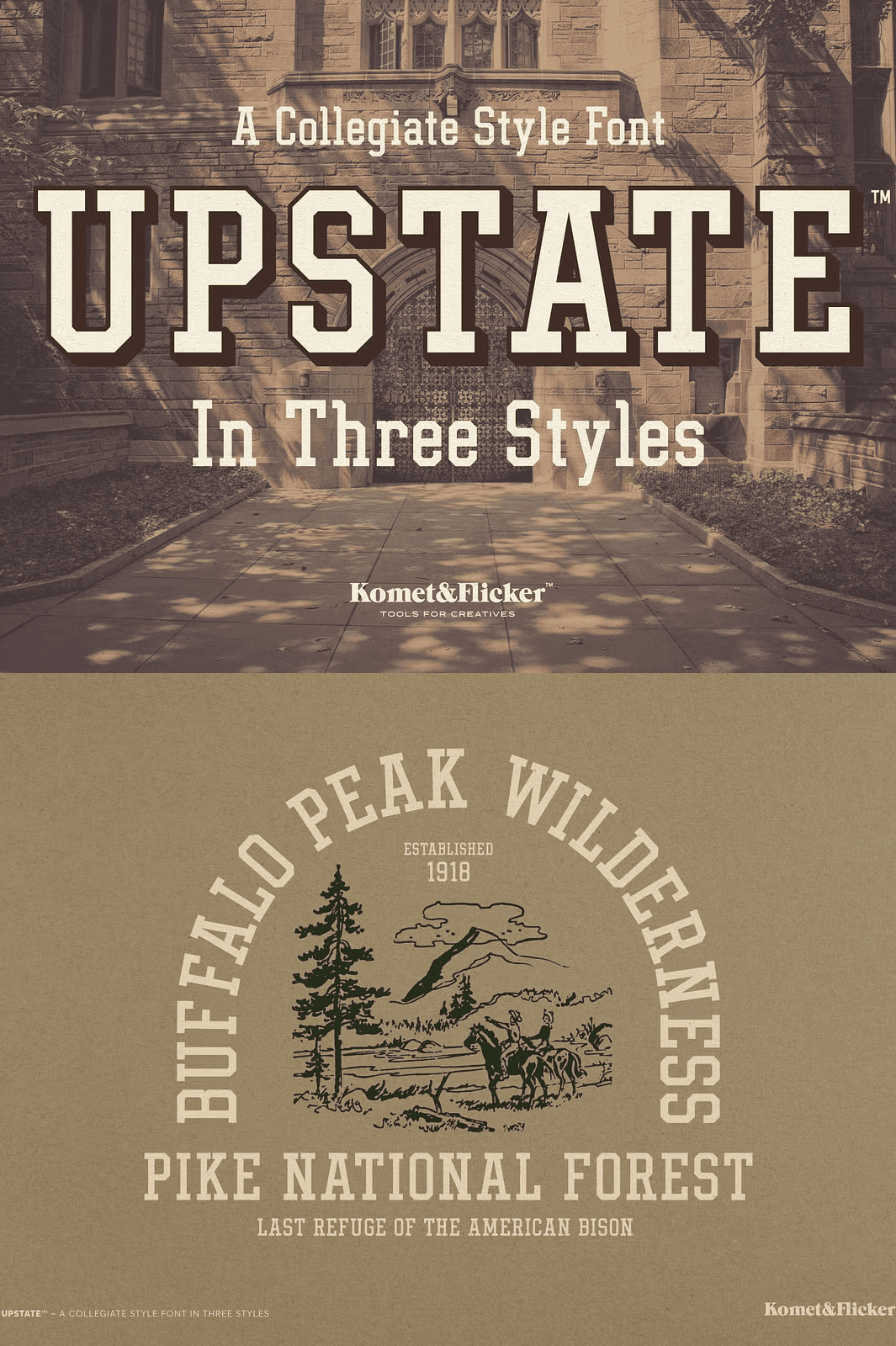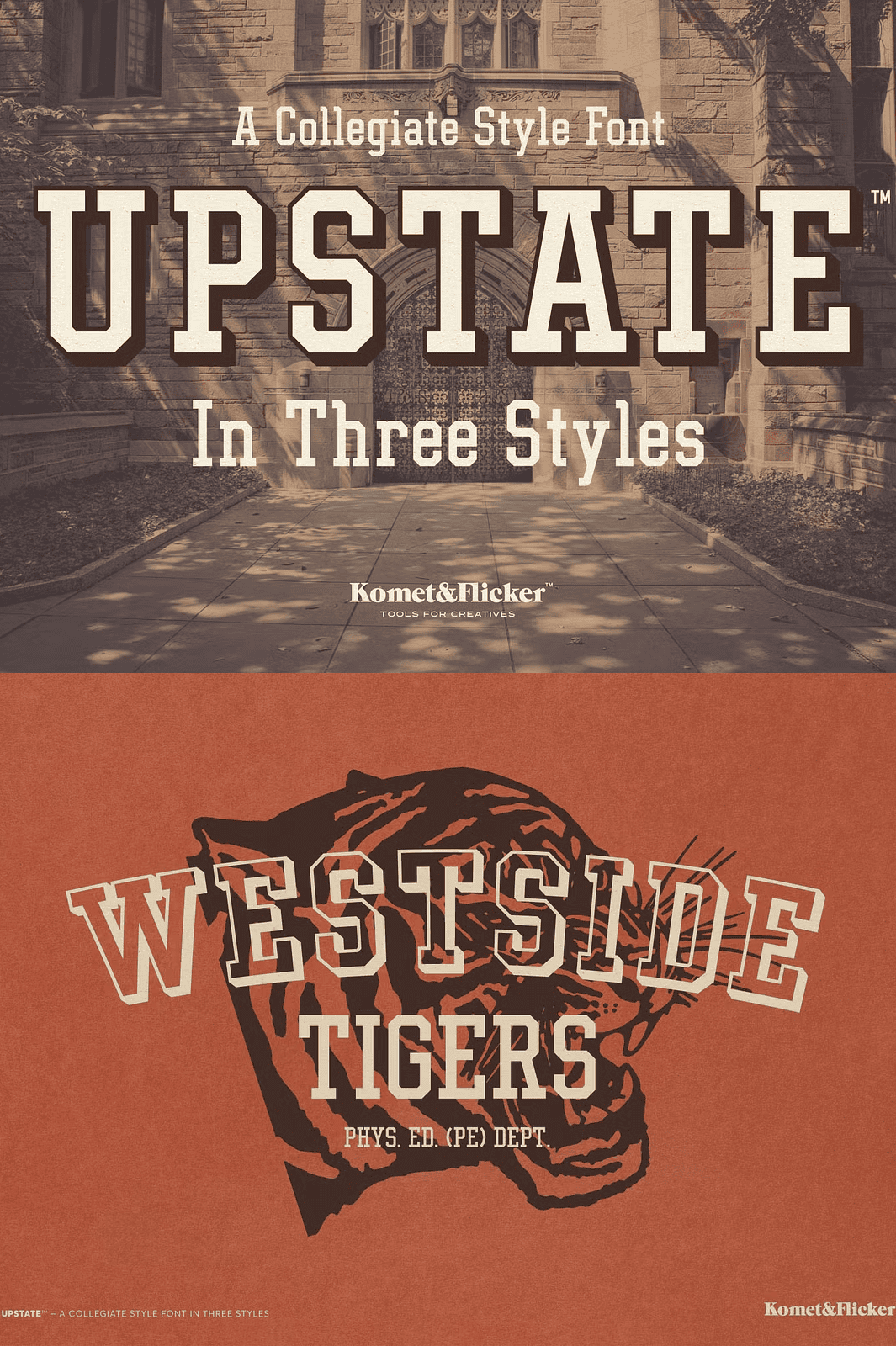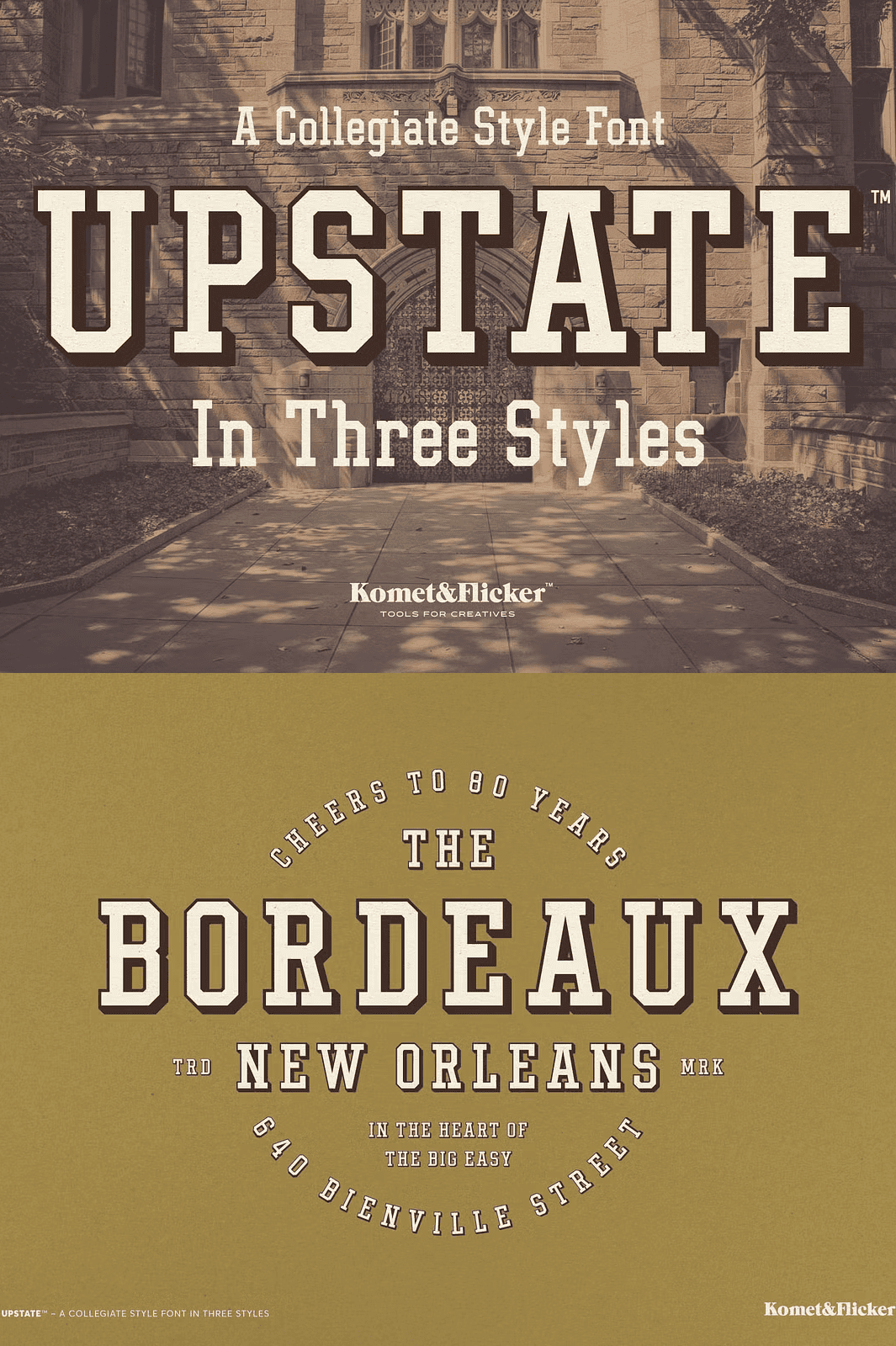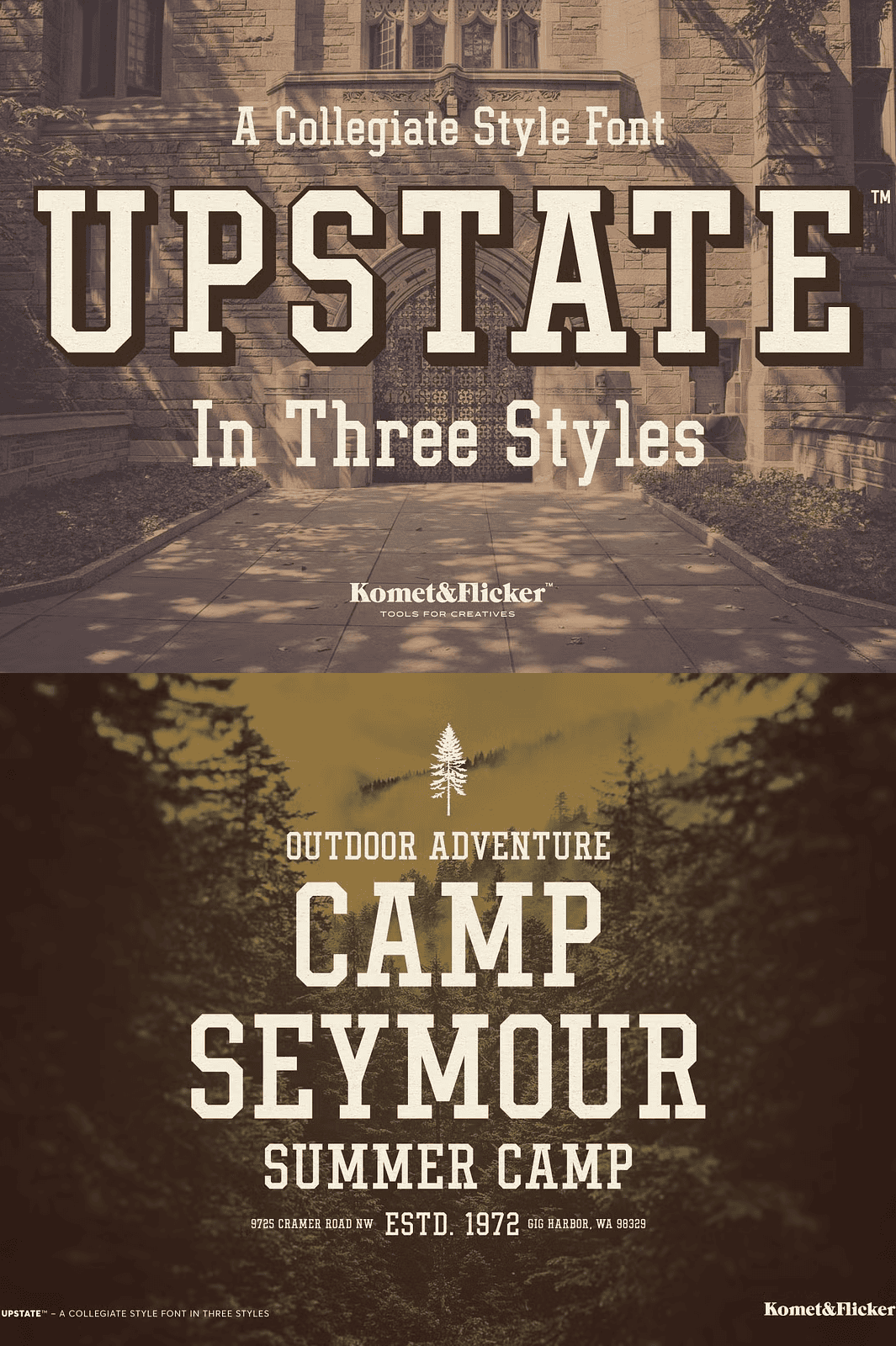
Dynamic Design Applications for Headlines Logos Packaging And Apparel
UPSTATE propels your projects forward with robust, angular strokes that command attention. Use it to electrify magazine covers, energize sports team branding, and give apparel graphics a confident edge. The slab‑serif structure delivers instant authority while the vintage grain adds nostalgic charm, letting you craft pieces that feel both timeless and contemporary.
Three Distinct Styles Offering Versatile Visual Impact Across Media
UPSTATE Regular – Solid Foundation for Clear, Powerful Messaging
The Regular weight anchors your compositions with clean, legible letterforms. Its sturdy serifs reinforce hierarchy, making it ideal for primary headlines, signage, and poster titles. Pair it with bright colors or textured backgrounds to amplify contrast without sacrificing readability.
UPSTATE Shadow Outline – Structured Outline for Eye‑Catching Highlights
The Shadow Outline style frames each glyph with a crisp, offset edge. Place it over complementary colors or photographs to create a striking silhouette effect. This outline instantly lifts text off the page, perfect for ticket designs, event flyers, and storefront graphics where you need a pop‑up presence.
UPSTATE Shadow Base + Shadow Fill – Combined Layer for Rich Depth and Dimension
Shadow Base and Shadow Fill function as separate files but unite to form a single, richly layered appearance. Apply the Base layer first, then overlay the Fill to control shadow color independently from the main glyphs. This technique mimics hand‑set wood‑type shadows, delivering authentic depth for vintage‑style branding, album covers, and heritage packaging.
Comprehensive Character Set Ensures Global Reach and Creative Freedom
Active OpenType Features Streamline Your Workflow and Boost Efficiency
Both Shadow Base and Shadow Fill support OpenType alternates that automatically replace double‑letter inputs with custom ligatures. This smart substitution eliminates manual adjustments, speeds up typesetting, and preserves the authentic wood‑type feel. The fonts also include tabular figures and proportional alternatives, giving you precise control over numbers in tables, invoices, or infographics.
Elevate Your Visual Identity Today with UPSTATE’s Vintage Collegiate Power
Whether you’re crafting a nostalgic university brochure, designing a retro concert poster, or adding heritage flair to modern streetwear, UPSTATE delivers the impact you need. Its bold, slab‑serif construction conveys confidence, while the shadow variations add depth that makes every word stand out. Choose UPSTATE and transform ordinary layouts into unforgettable statements.